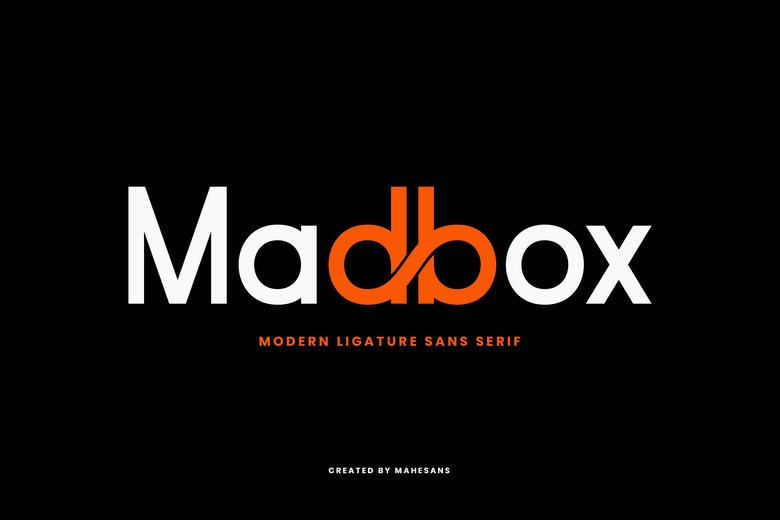
Madbox Font
Madbox is a modern, smooth, and sleek sans serif typeface that incorporates both geometric perfection and art. Characterized by its audacious nature and motion-filled ligatures, Madbox can be distinguished by experimental forms, most prominently its novel so-called db ligature, which assumes the role of the visual keystone to its identity.
The font is simple and creative at the same time, which is suitable in branding, headlines, posters, and futuristic interfaces. Its minimal letters are legible, and the original ligatures create a feeling of movement and novelty, making a mundane text visual. Whether applied in a sparse design or a branding technology, Madbox provides a contemporary touch with a twist of its own signature.
Madbox Sans Serif Font